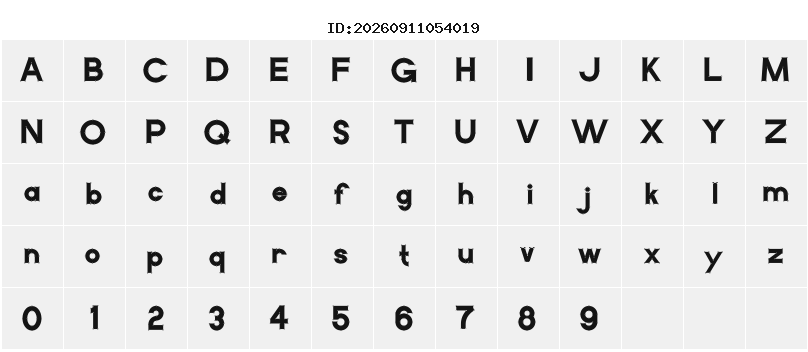
VectorBlack Preview
• Font Name: VectorBlack
• Full Font Name: VectorBlack
About VectorBlack.ttf
VectorBlack.ttf is a modern, elegant sans-serif font designed for ultimate readability and visual harmony. Perfect for branding, headlines, web design, and print materials.